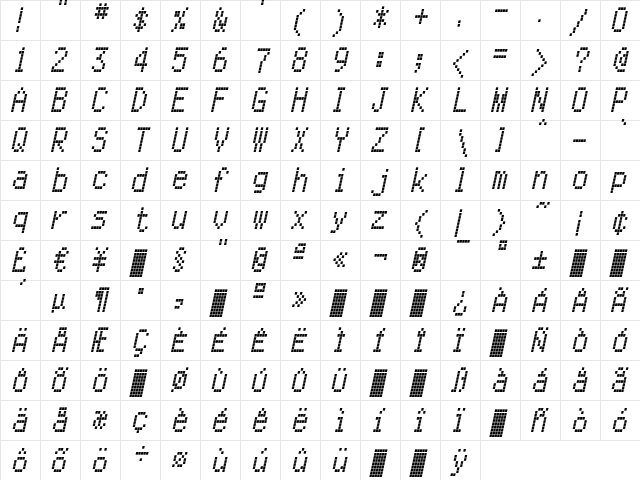
CallSix-Italic Regular Font Preview
CallSix-Italic Regular
CallSix-Italic Regular Font Details
Design Context for CallSix-Italic Typeface
CallSix-Italic takes a measured approach to typography — its balanced proportions and neutral character make it a reliable workhorse for both digital and print work. The slanted form adds forward momentum and visual energy.
Pro Tip: Try CallSix-Italic for annotation and caption copy alongside an upright companion — the contrast in angle creates a dynamic but ordered typographic system.